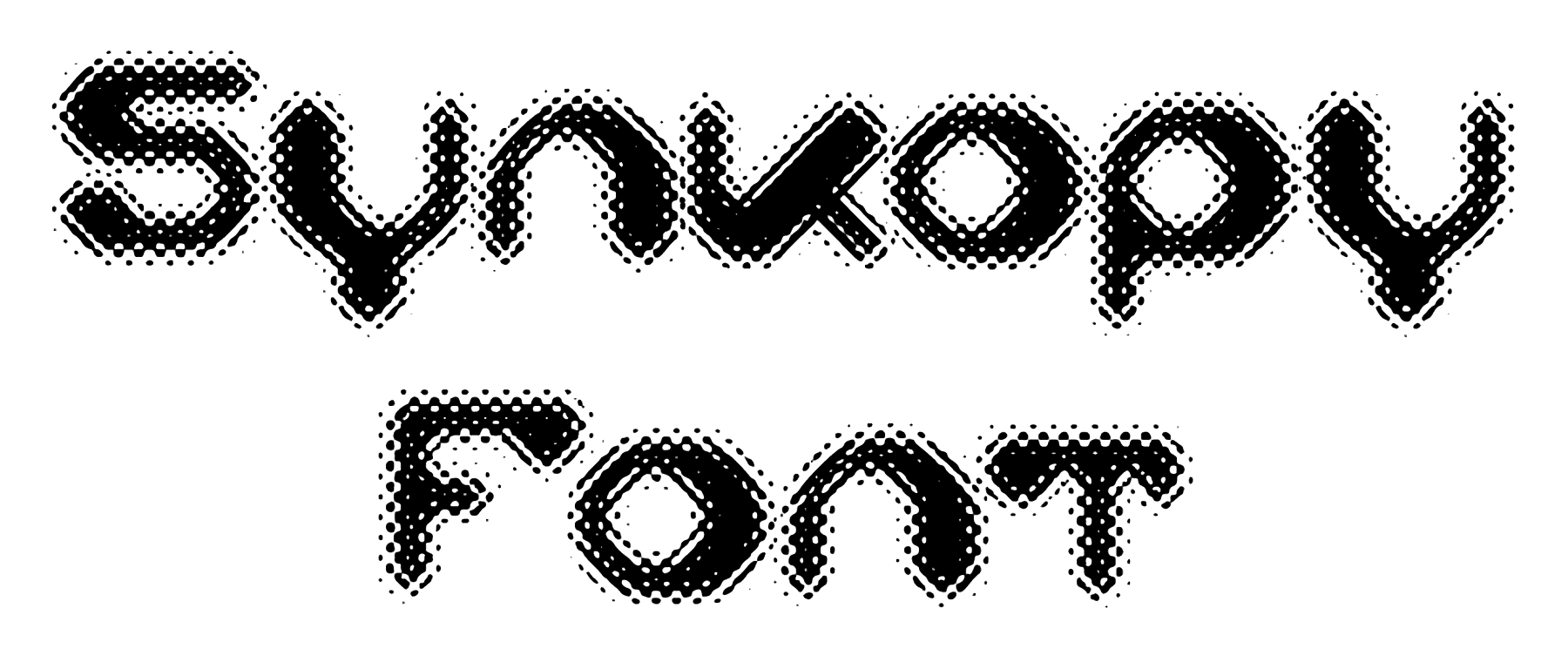
Synkopy
What You Can Type With Synkopy
You get every letter from A to Z in both cases and all the numbers from 0 to 9, which means Synkopy can handle full sentences, dates and prices. Common punctuation such as !, ?, @ and # is included as well. It also has the accented letters you need for Spanish, French, Portuguese and Italian.
Where Synkopy Works Best
Designers usually reach for fonts like Synkopy when they're making posters, logos and eye-catching headlines. Its lowercase letters are tall compared to the capitals, which keeps it readable at smaller sizes. Use it for one standout word or headline and let simpler fonts handle the rest. Because the family has more than one style, you can mix them in a single design for headings, subheadings and highlights.
Who designed Synkopy font?
Synkopy was designed by Jorge Villarreal. The copyright line inside the font is dated 2022.
Does Synkopy support accented letters?
Yes. Synkopy includes the accented letters needed for Spanish, French, Portuguese and Italian, so it works for more than just English.